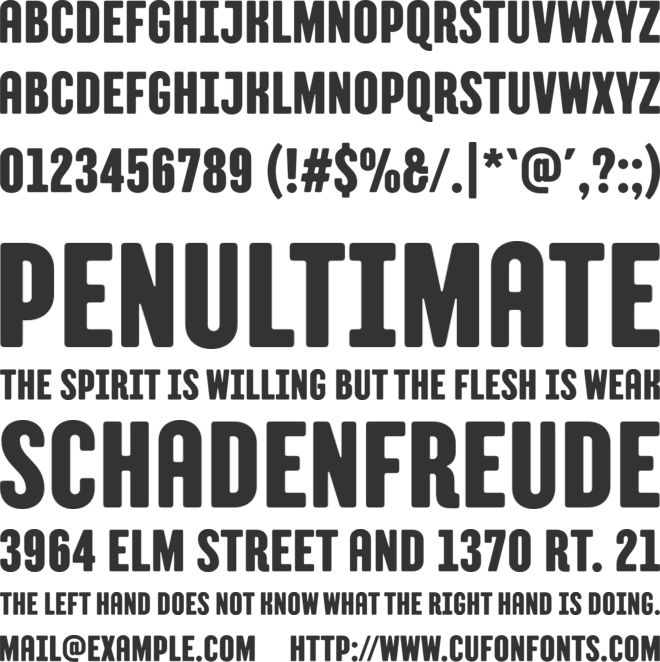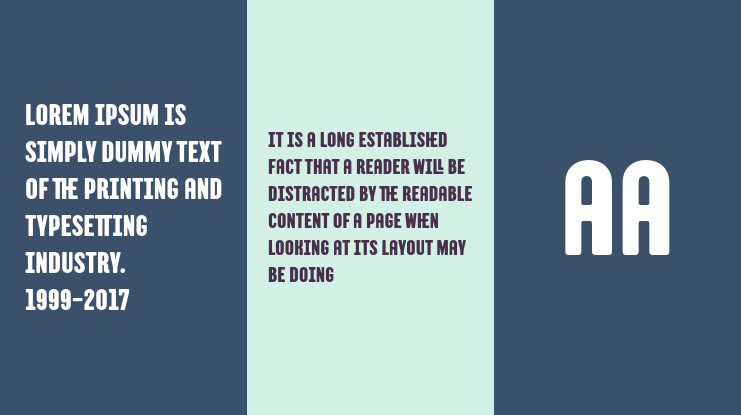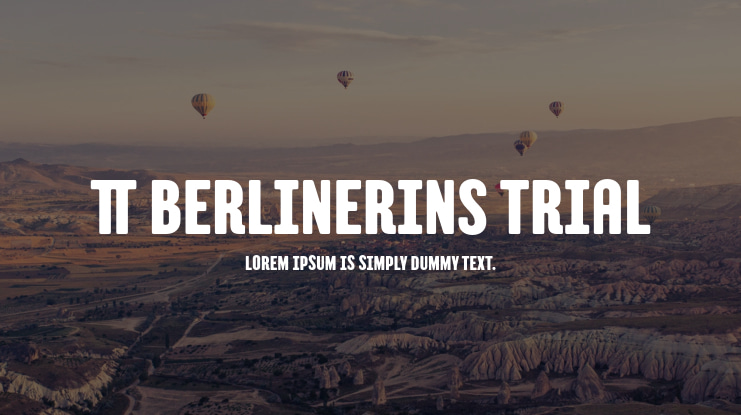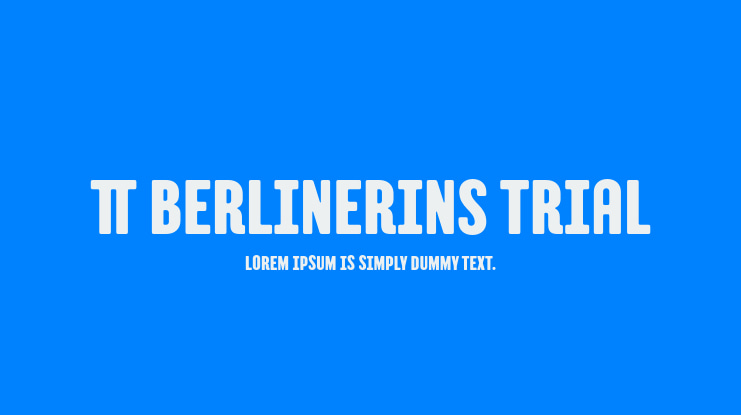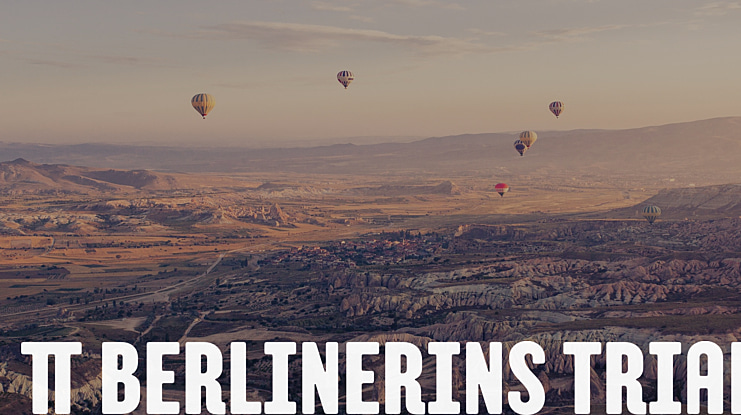
TT Berlinerins is a contrast pair of typefaces which is basically our tribute to Berlin. Just like in the city itself where historicity and modernity are intertwined, the elegant script in our font family symbolizes the modern Berlin, and the sans-serif inspired by the wood-type poster types of the first third of the 20th century is responsible for the historic component of the city.
The idea of this project emerged in the beginning of 2016 when weve met Evgenia Pestova, a calligrapher from Berlin, who shared the contemporary perspective on calligraphy and the city impressions with us. The wood-type sans-serif appeared later, after our another colleague had visited Berlin and told us his fascinating story about the things he had seen. The city is full of contrasts it is very modern and very vintage at the same time. The photographs and the impressions from the trip have also become the basis of our project. That is how weve added a little of old Berlins roughness and inhomogeneity.
TT Berlinerins Grotesk consists of uppercase letters, includes a set of unusual ligatures and wide support of OpenType features: ordn, frac, sups, sinf, numr, dnom, tnum, pnum, liga, salt and two stylistic sets ss01, ss02 for the ampersand.